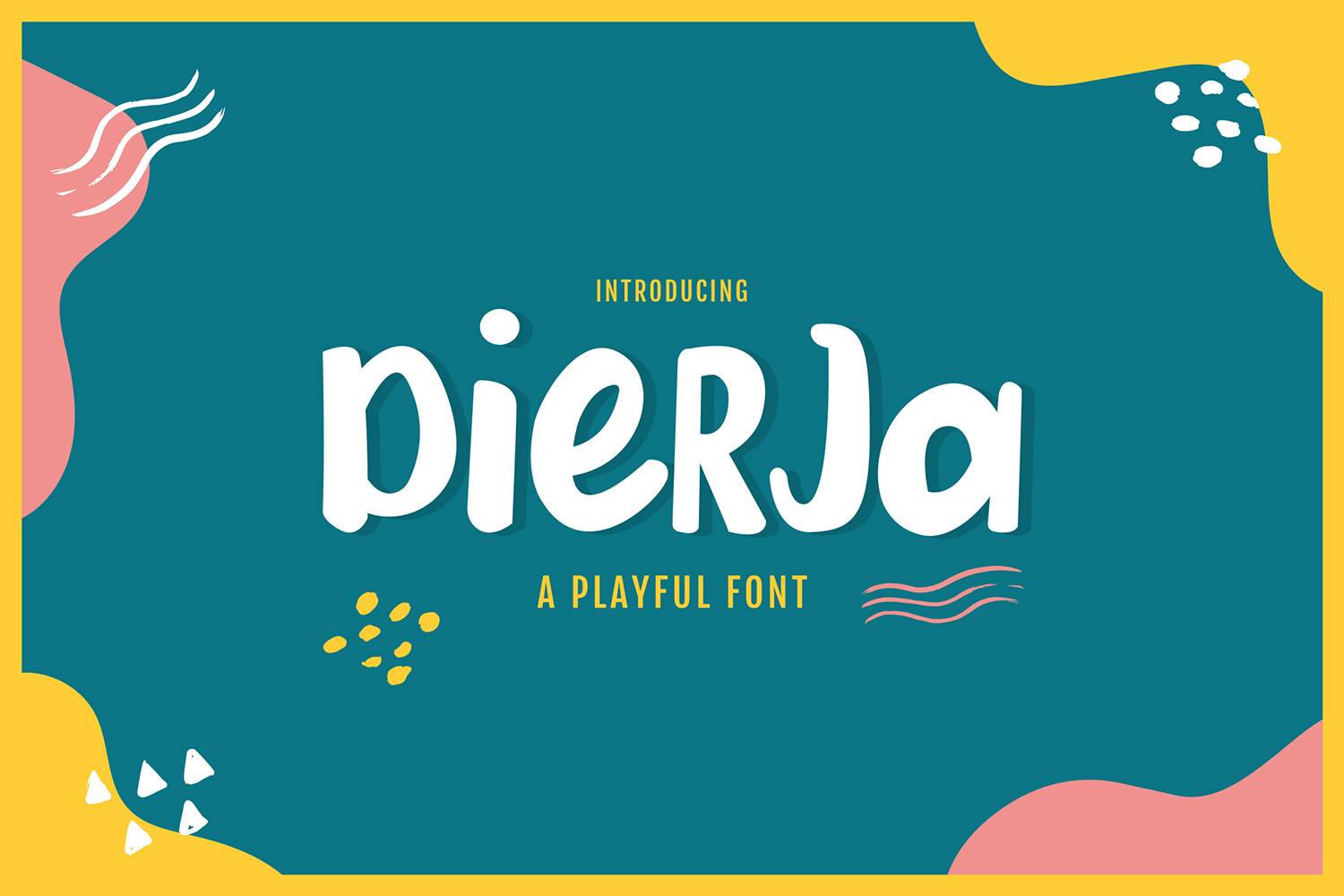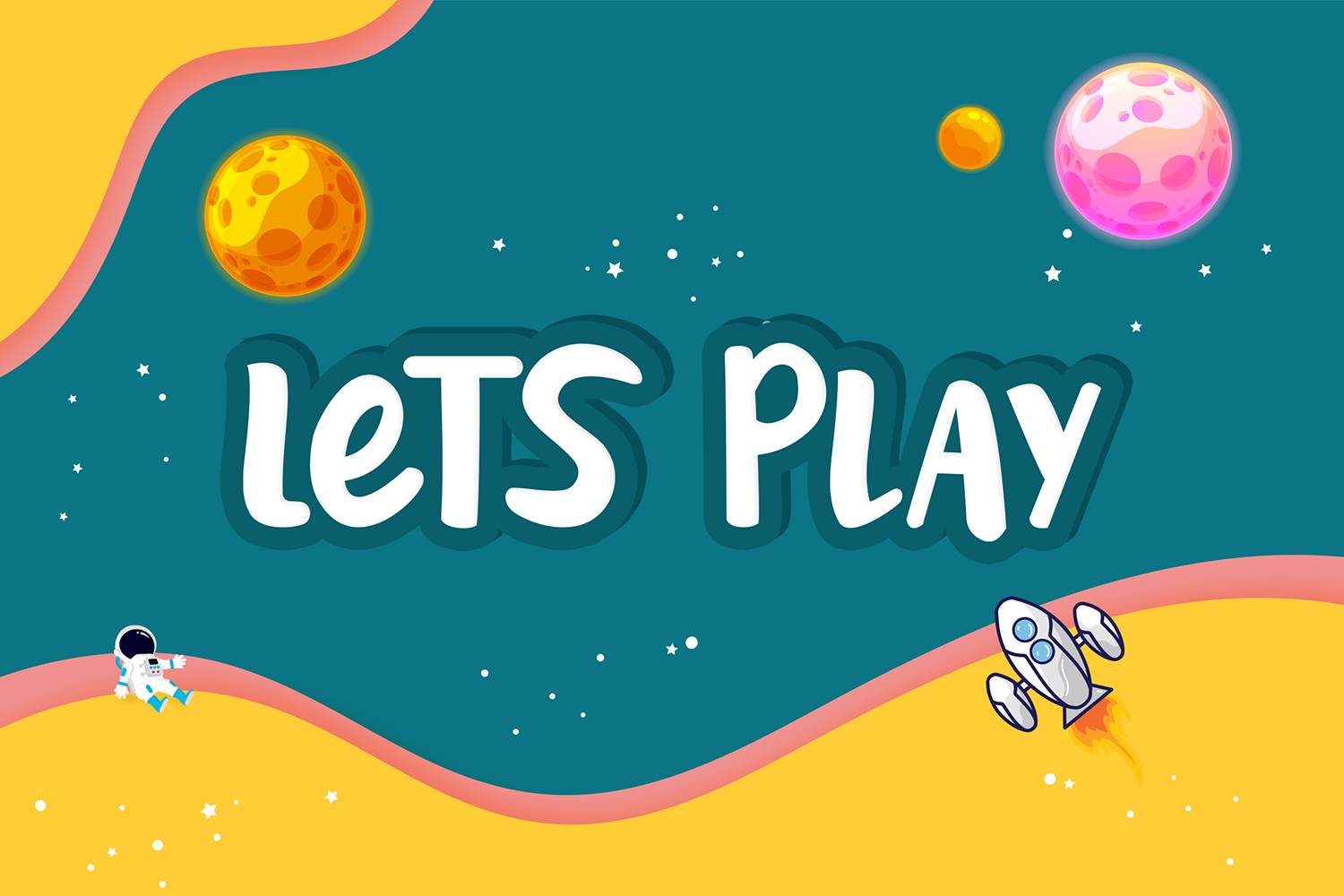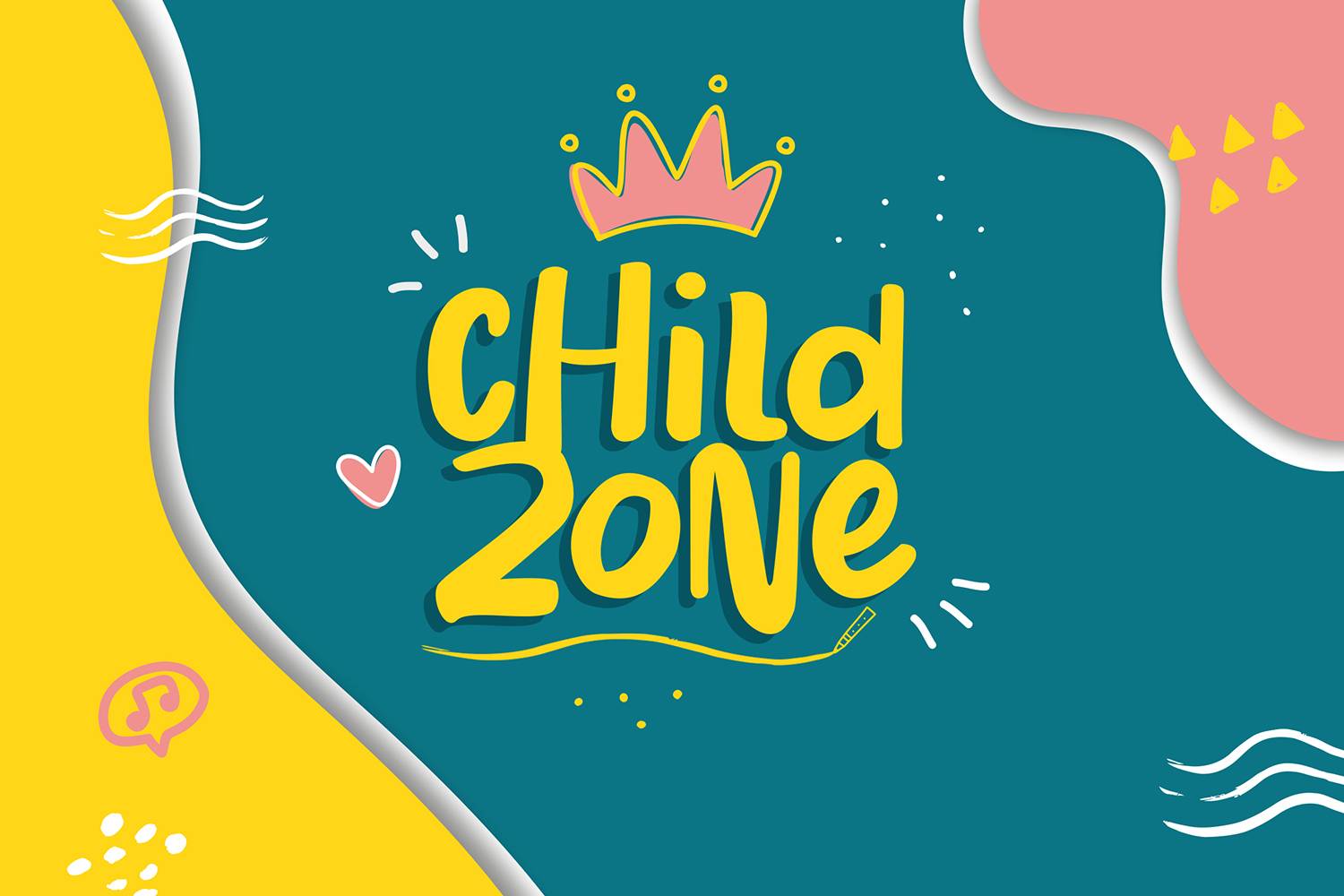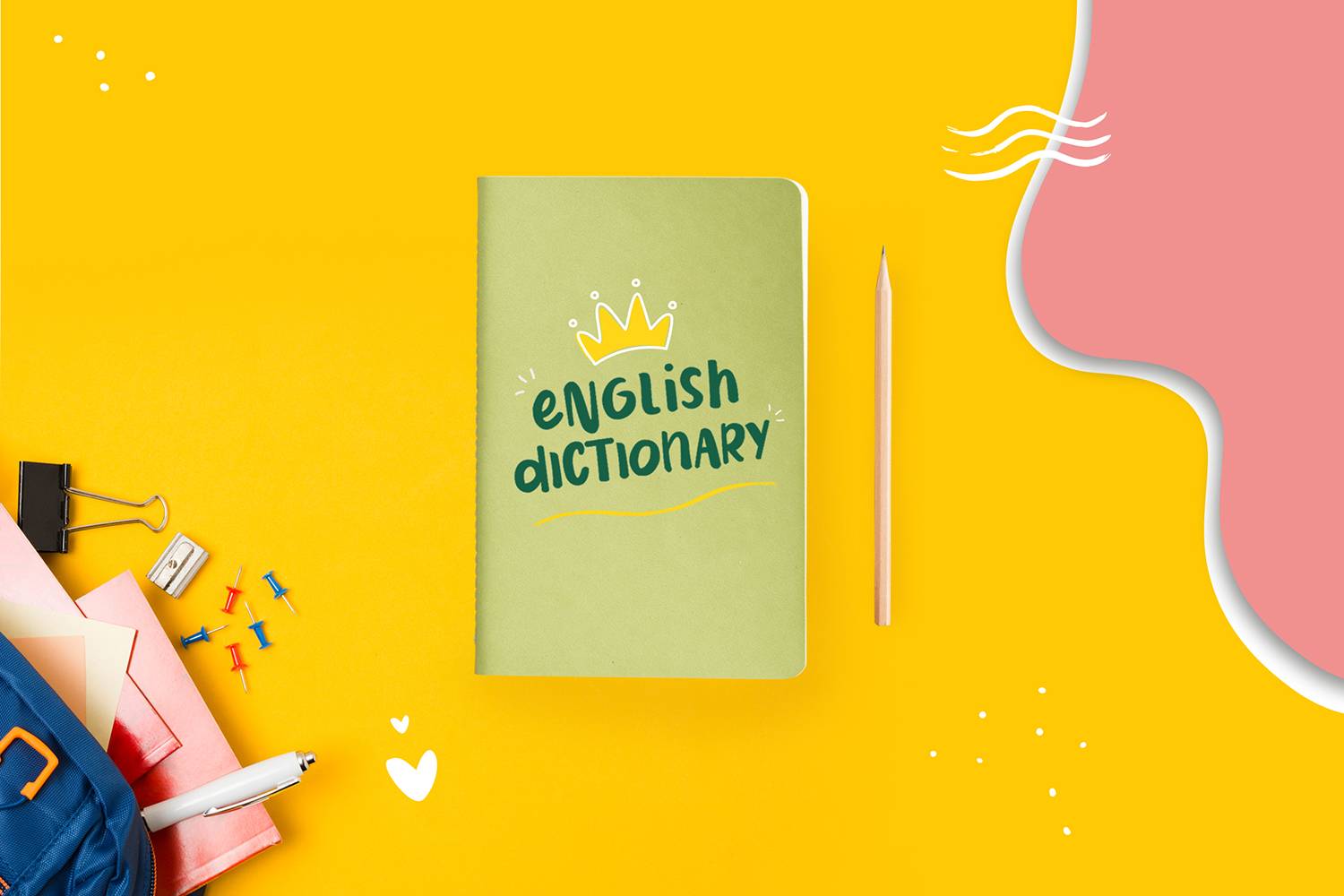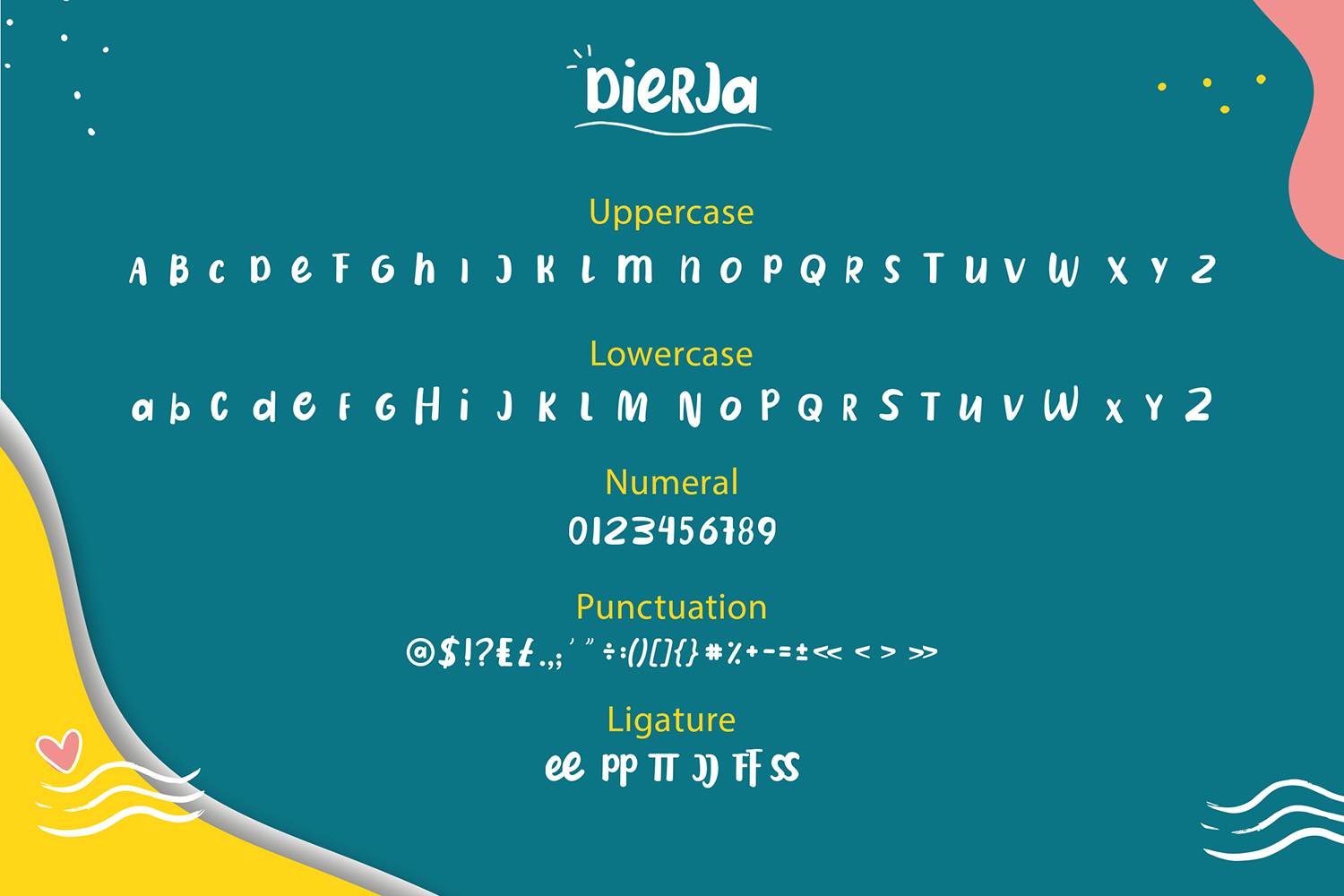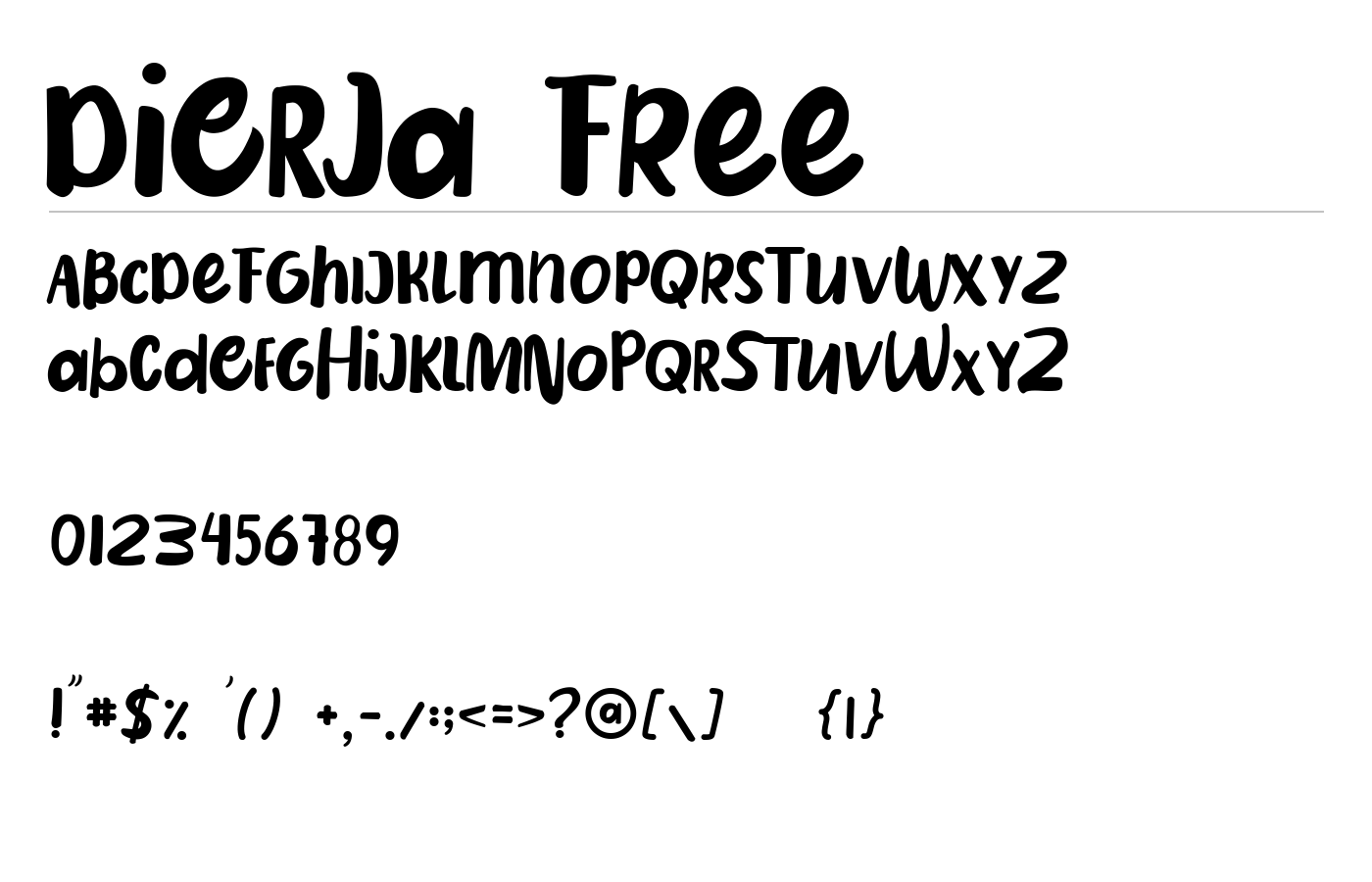
Dierja is a playful, casual sans serif font with a hand-drawn feel, featuring rounded, slightly irregular letterforms that bring warmth and friendliness to any design. Its moderate weight and relaxed spacing make it ideal for informal projects like children's books, creative branding, or social media graphics where an approachable and fun personality is desired. This font shines in headlines and display text where its unique, quirky charm can engage viewers and create an inviting atmosphere.
Dierja Font
About Dierja Font
| Font family | Dierja Font |
| Designer | Inspiratype |